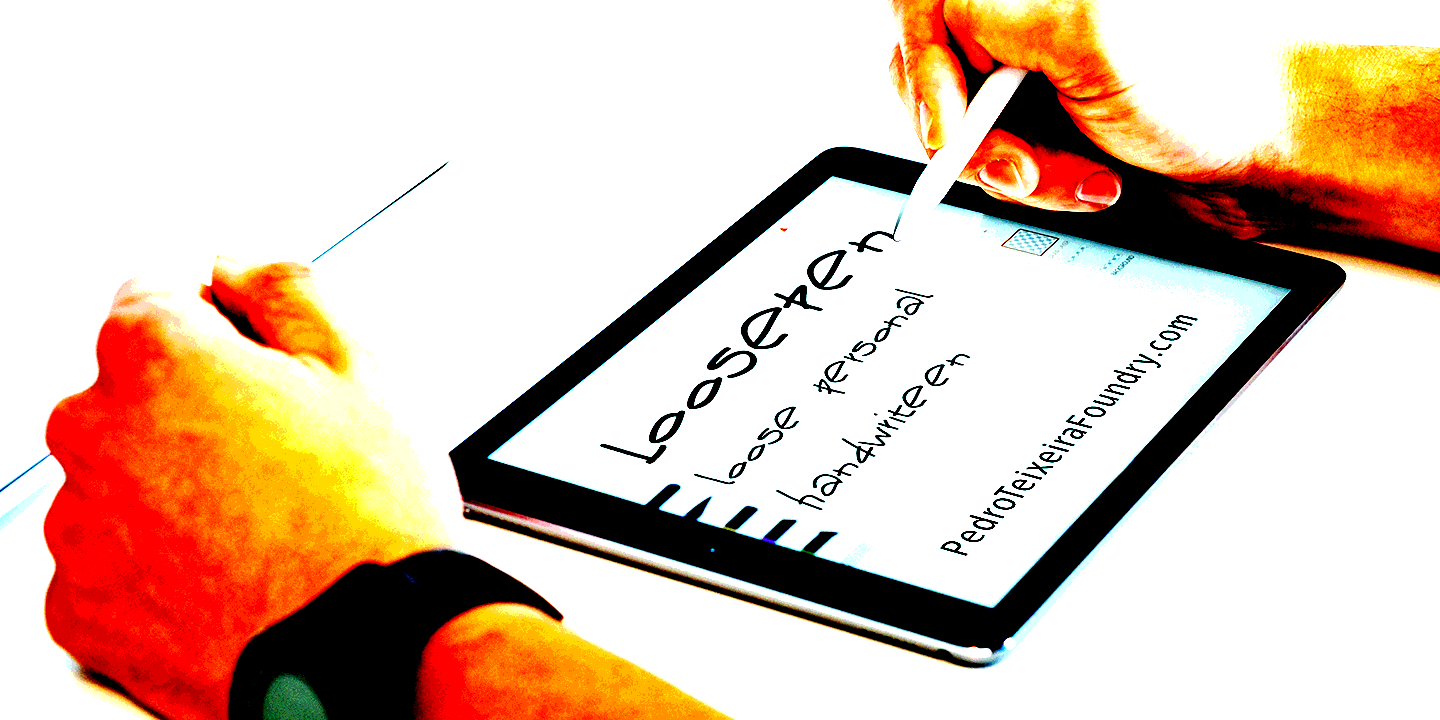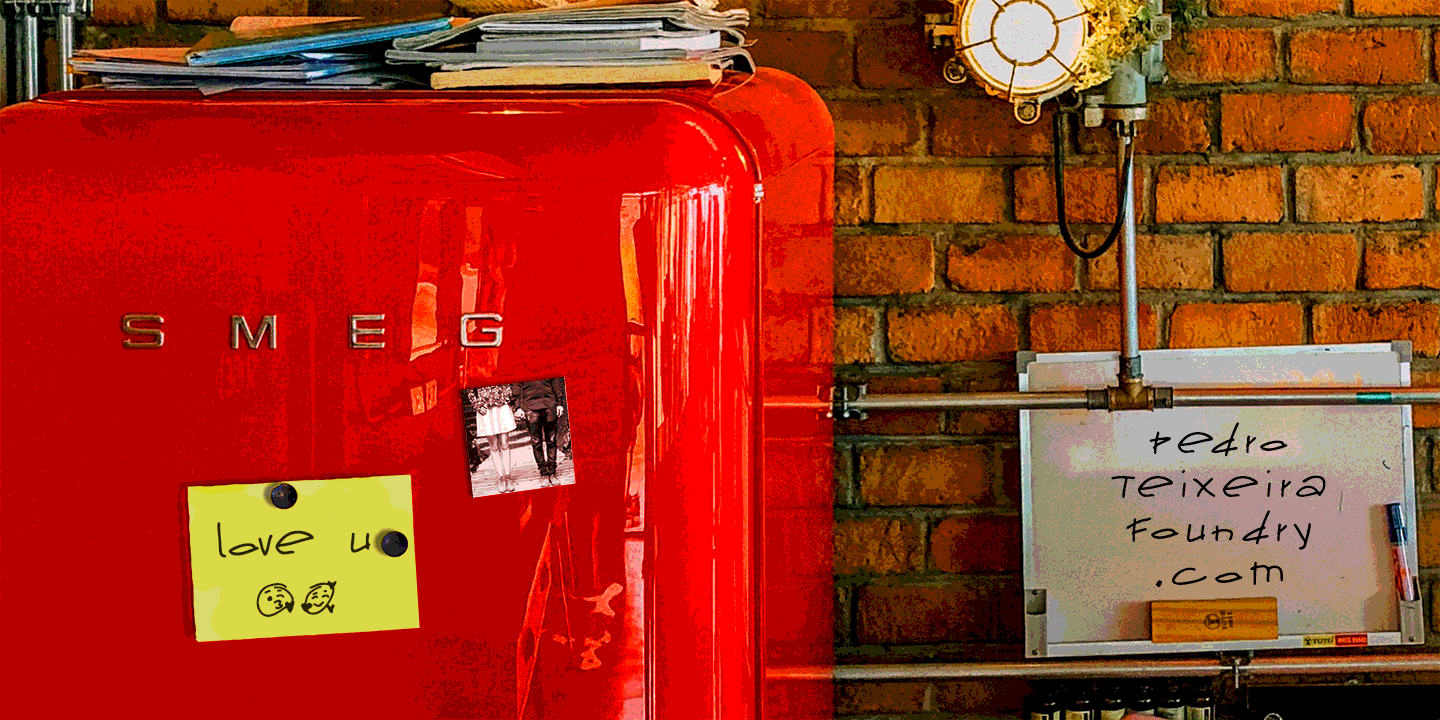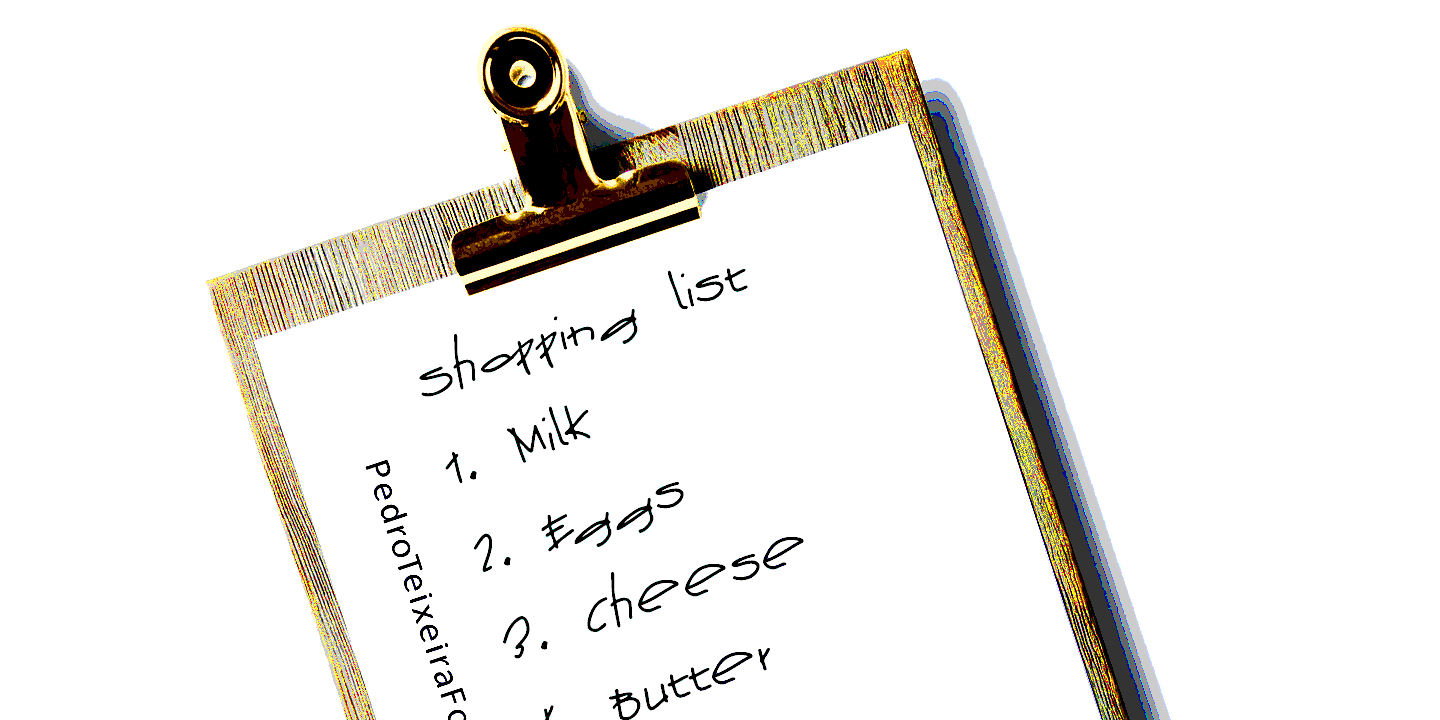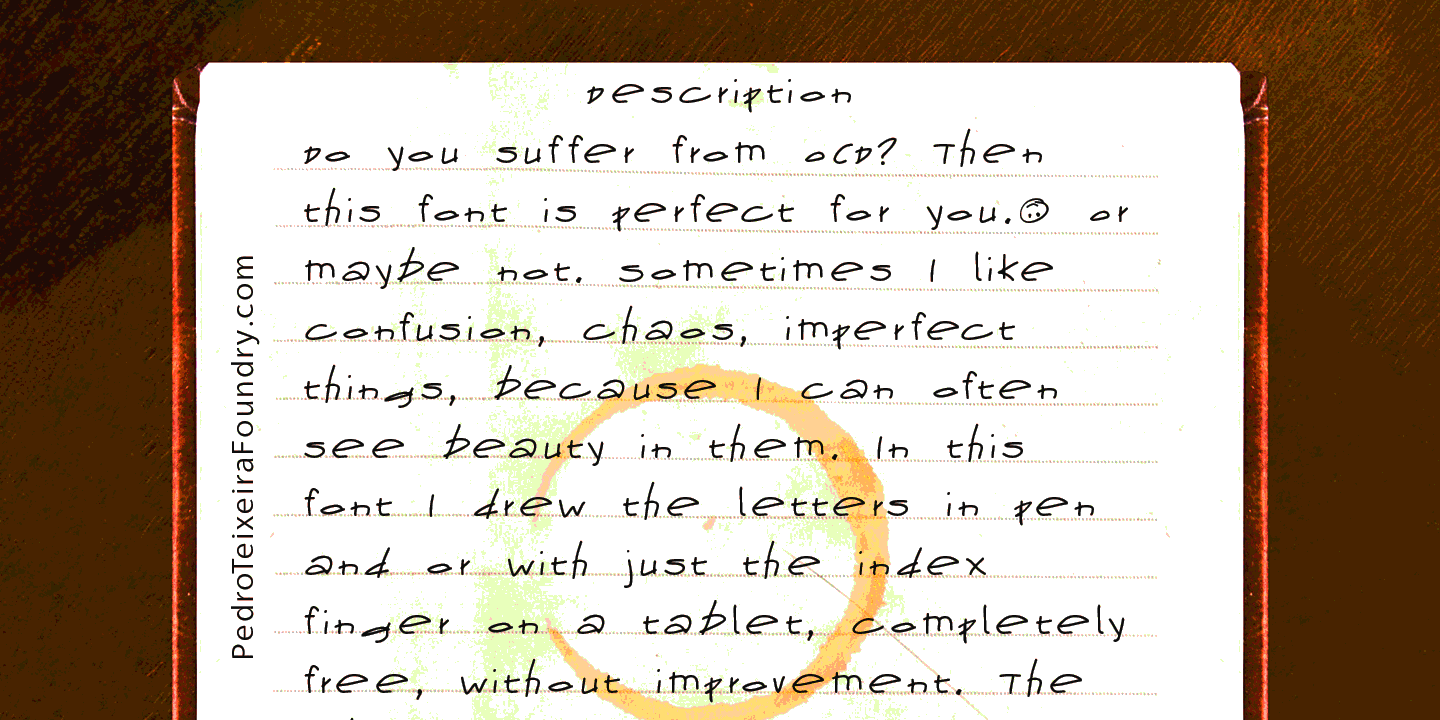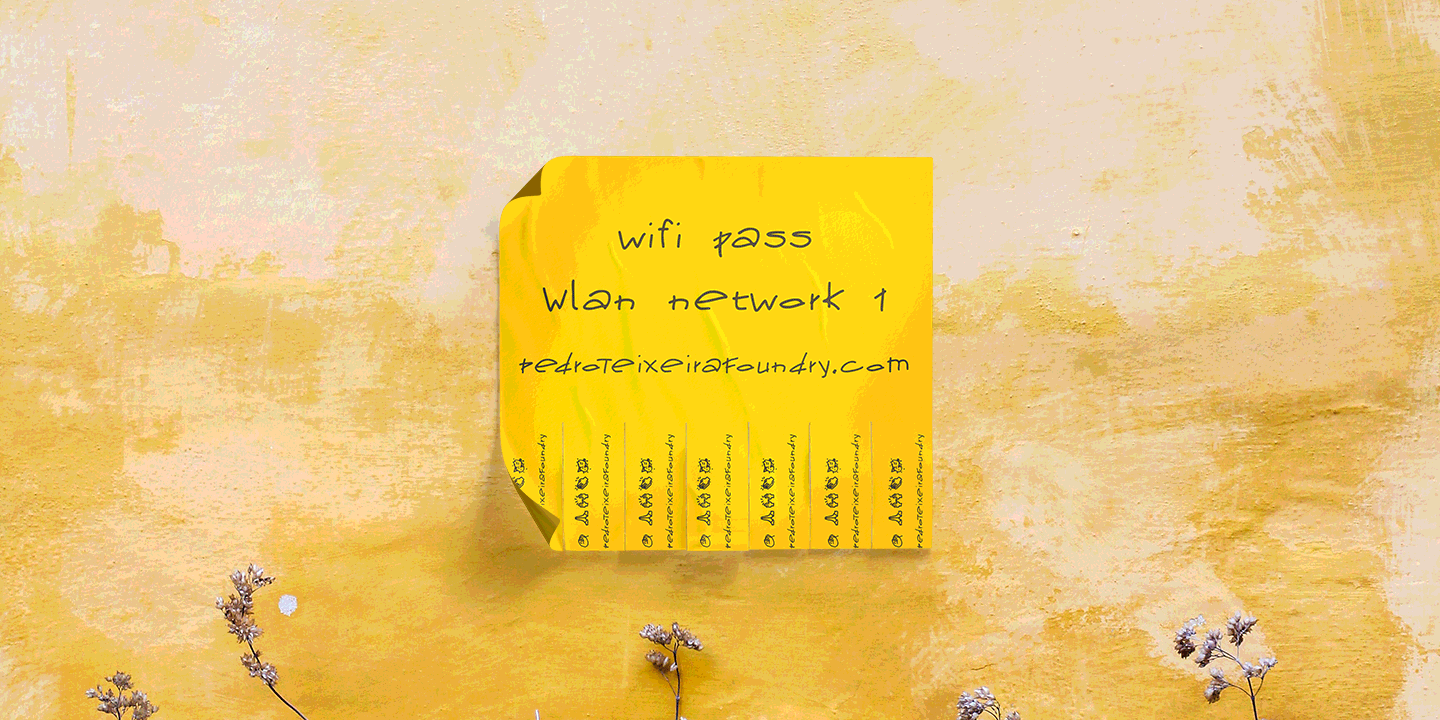
Loose Pen
Font Family by Pedro Teixeira Type Foundry
Do you suffer from OCD? Then this font is perfect for you. Or maybe not. Sometimes I like confusion, chaos, imperfect things, because I can often see beauty in them. In this font I drew the letters with a pen and or with just the index finger on a tablet, completely free, without improvement. The chaos ensuing. As if I was rushing notes just for me. Then, without changing the design any further, but to make the chaos minimally legible, I decided - look at this madness! - to organize the chaos. In other words, I aligned metrics and kerning, and the end result was this. I hope you like it and that it is very useful for you. Cheers.